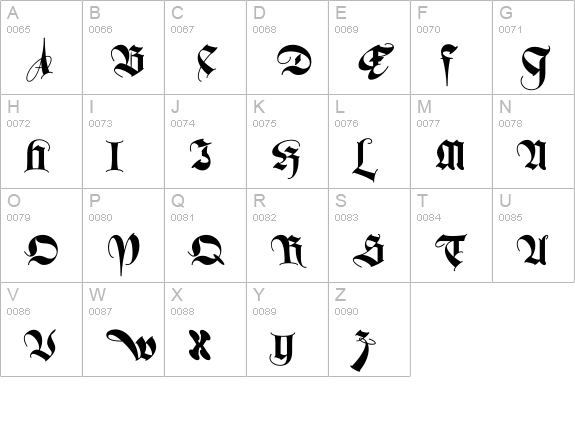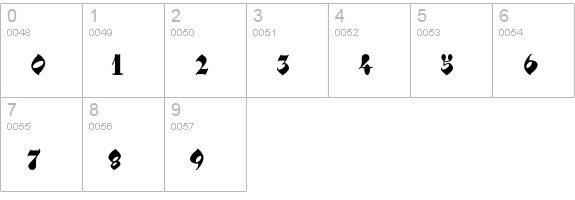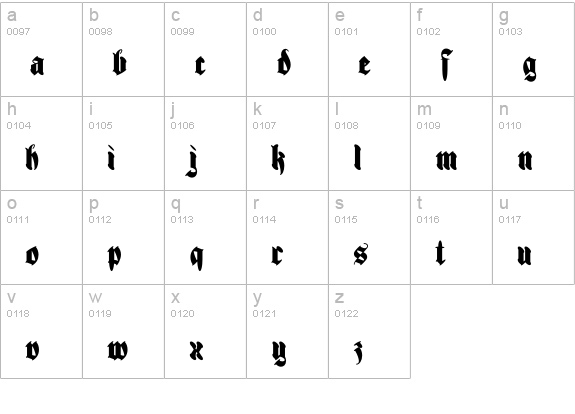
Ferox Alternate Font Details
Ferox Alternate font is a striking and versatile typeface that exudes a sense of strength and boldness. With its distinctive letterforms and sharp angles, this font is perfect for making a powerful statement in your designs. The alternate version of Ferox offers a unique twist, adding a touch of creativity and originality to your projects. What makes Ferox Alternate even more appealing is that it is available for free download at FontsMarket.com. This means you can easily access this modern and edgy font to elevate your designs without any cost. Whether you're working on branding, posters, or any other creative project, Ferox Alternate font is sure to make a lasting impression with its bold and dynamic aesthetic.